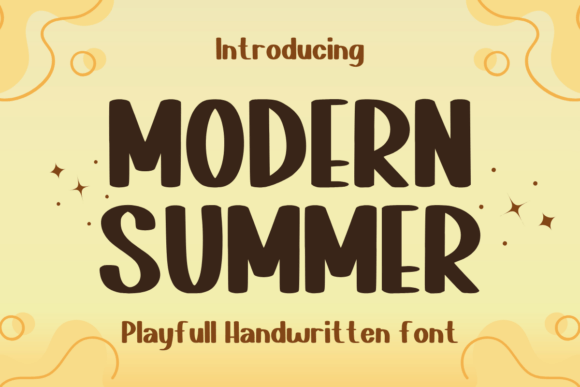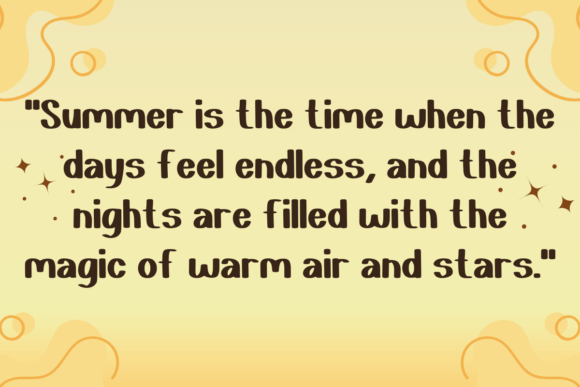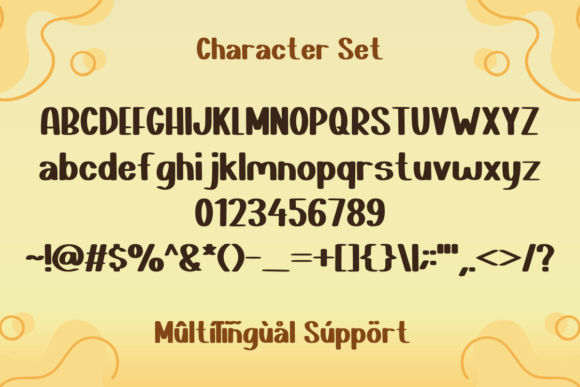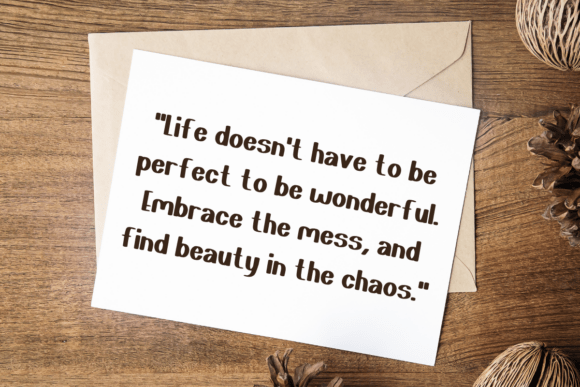
About the Modern Summer Font
From logos to headlines, the Modern Summer Font is the perfect choice for making a lasting impression. Modern Summer is a fun and bold handwritten font that’s perfect for crafts, planners, KDP, stickers, greeting cards, and more. With its cute and friendly style, it works great for Cricut, sublimation, and creative DIY projects. Ideal for crafters, designers, and makers!
Modern Summer’s playful energy makes it ideal for branding projects targeting a young, vibrant audience, particularly in sectors like fashion, food, and entertainment. It excels in headlines, short text blocks on posters, and social media graphics. However, its handwritten nature limits readability in body text or UI elements requiring extensive legibility.
For optimal pairings, consider a clean sans-serif like Open Sans for body copy, creating a strong contrast between the casual script and a professional base. Alternatively, a geometric sans-serif like Montserrat adds a modern edge, complementing Modern Summer’s bold character without overwhelming it. Avoid pairing it with overly ornate scripts to maintain visual clarity.
The font’s core personality is friendly and approachable, yet undeniably bold. This makes it suitable for brands wanting to project a youthful exuberance and a sense of handmade charm.